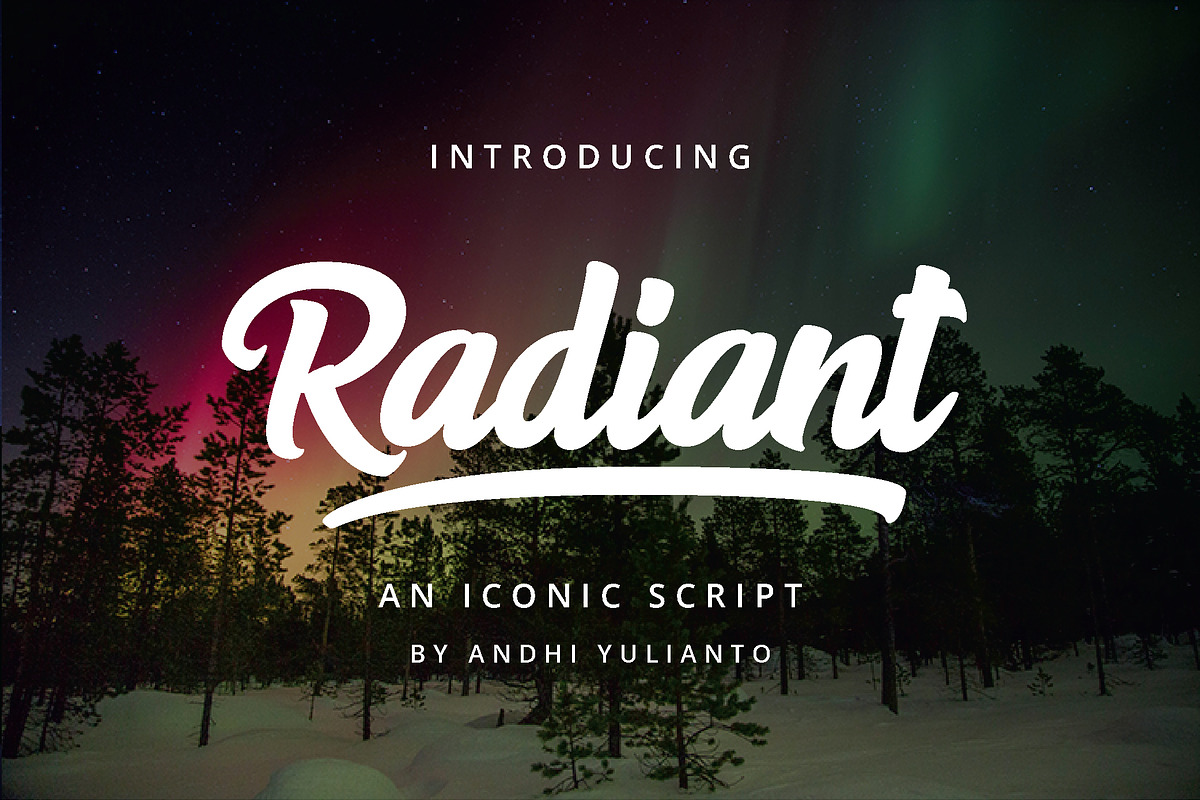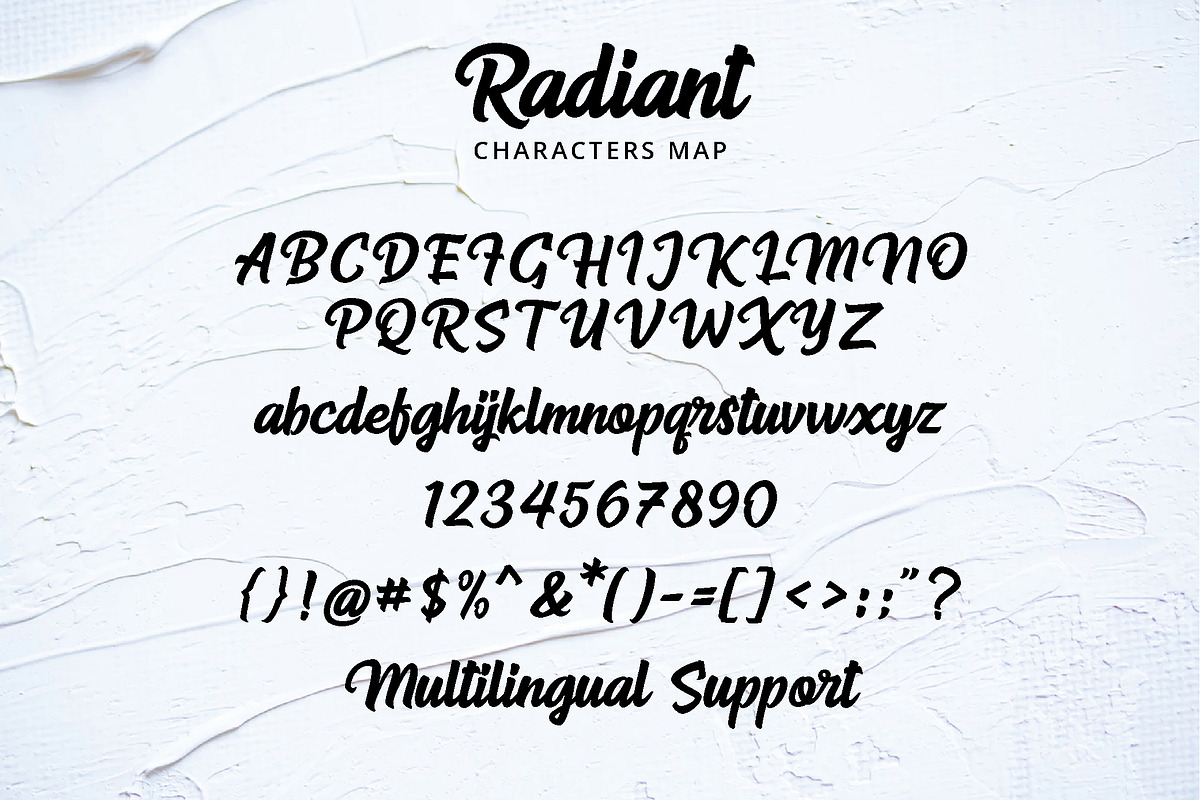
Radiant Script
Radiant script is a bold typeface, incredible font to make an iconic word mark, logotype, typography. A simple script but also powerful for branding project, it is easy to use. Radiant script was made with manual hand written with a brush pen then carefully digitalize using vector software to make it nice and correctly proportional.